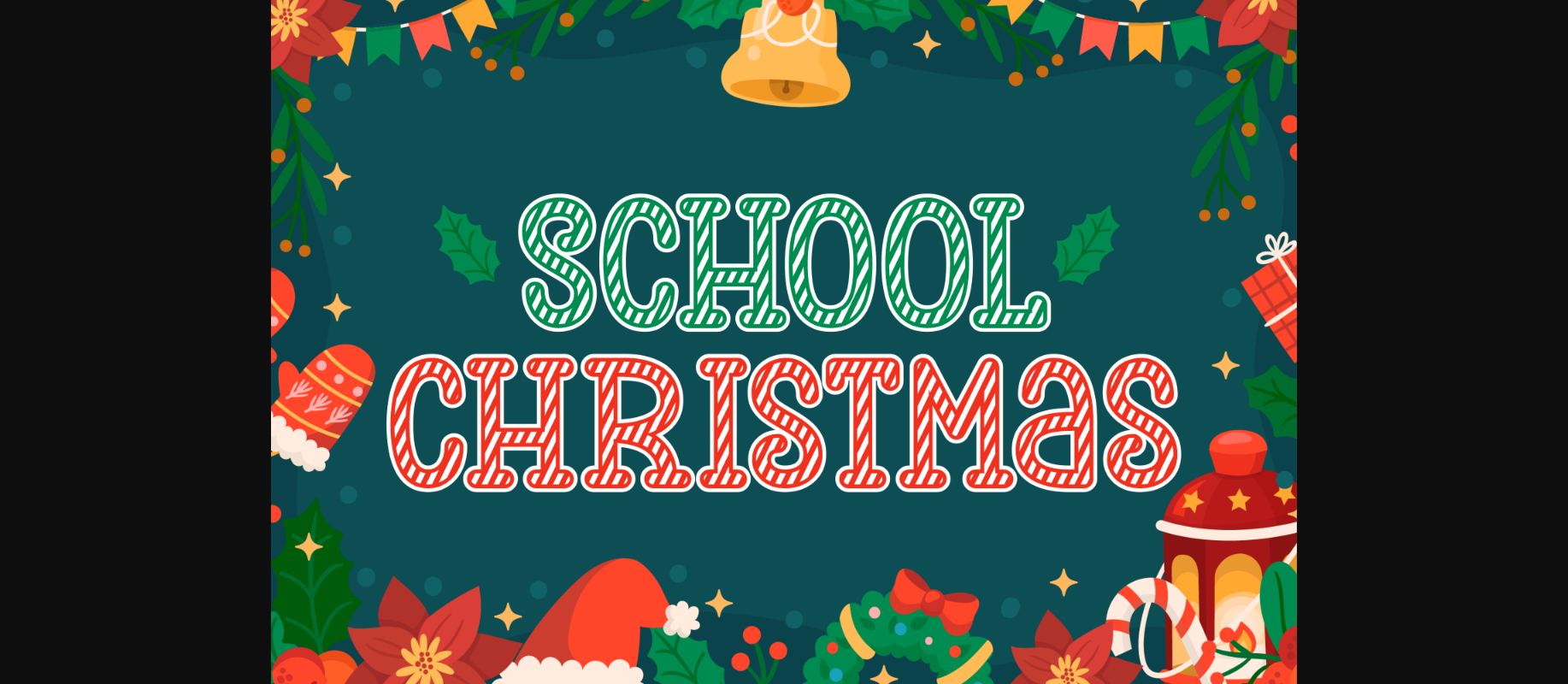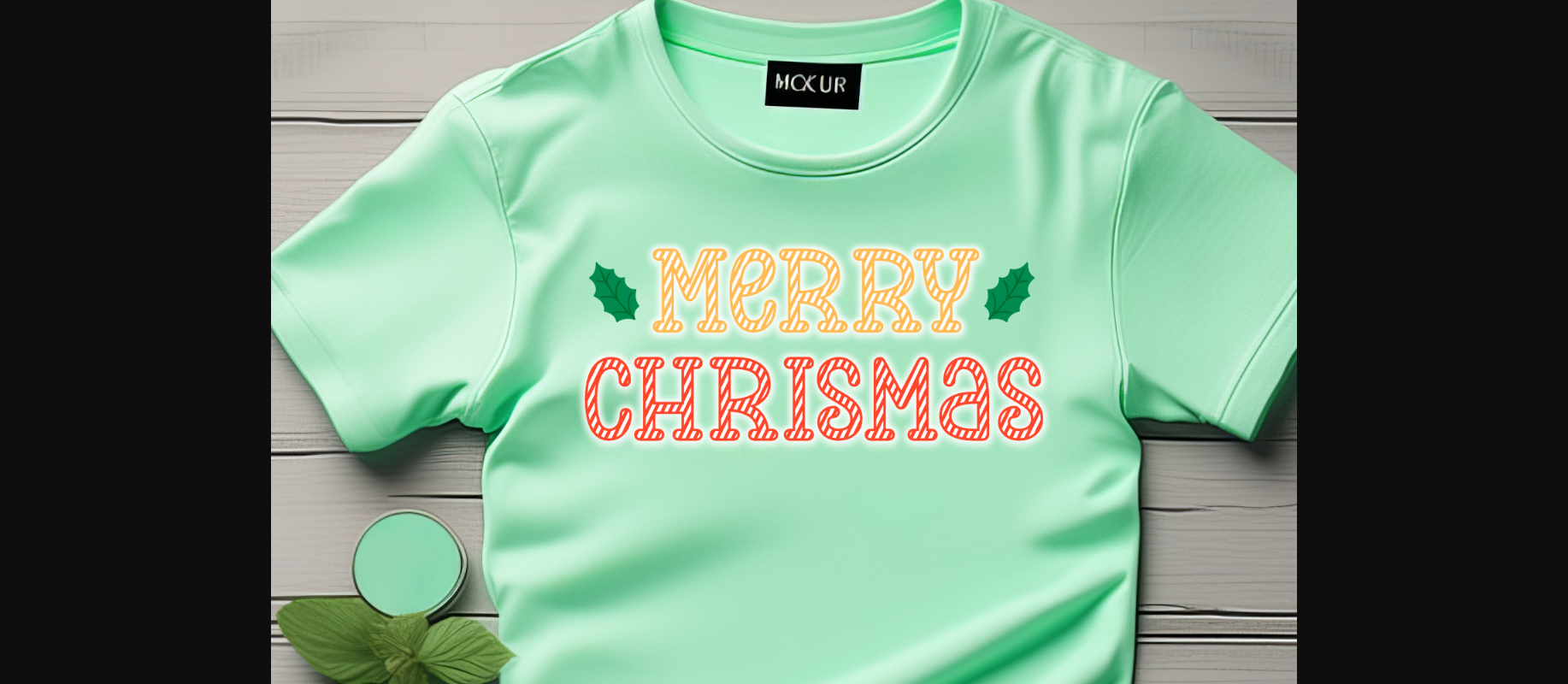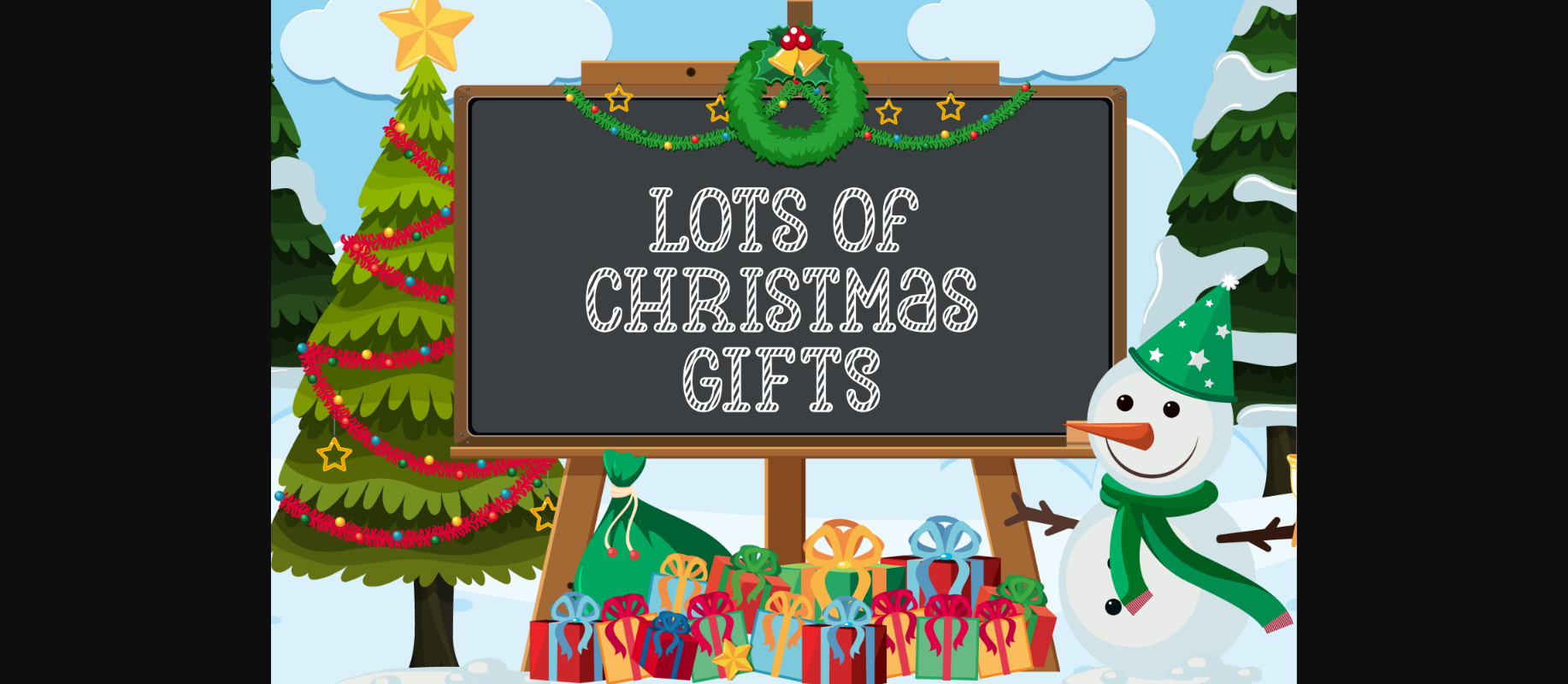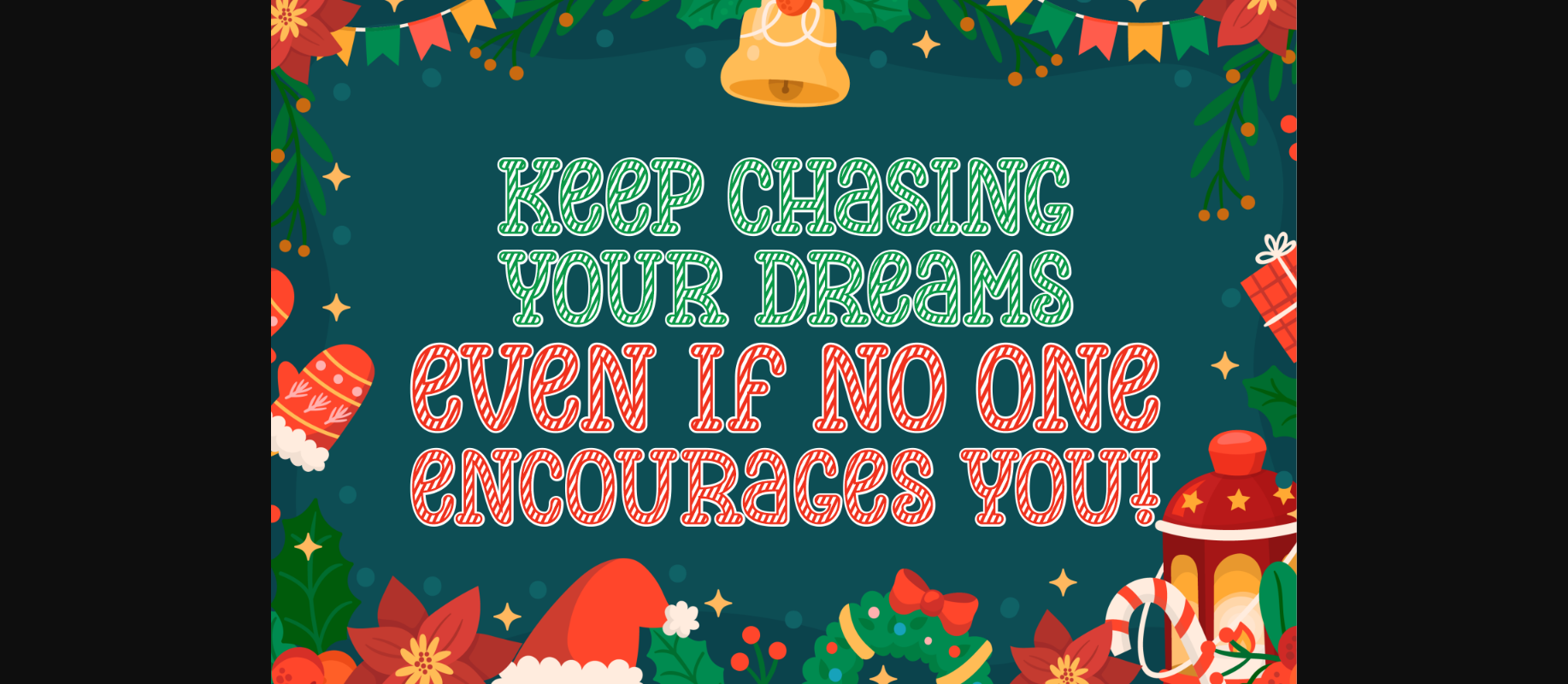
About School Christmas Font
School Christmas is a gorgeous decorative font, that fits incredibly well to this time of the year. No matter the topic, this font will be an incredible asset to your fonts’ library, as it has the potential to elevate any creation.